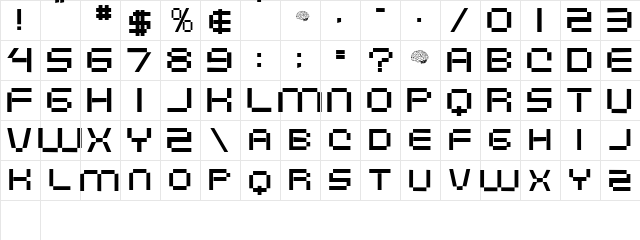
Digitalema Regular
Design Context for Digitalema Typeface
Digitalema channels digital-age aesthetics through its sharp, structured letterforms — ideal for brands that want to signal innovation.
Pro Tip: Use Digitalema in combination with a neutral sans for body text. Let it define the brand voice in headlines while keeping reading comfortable elsewhere.